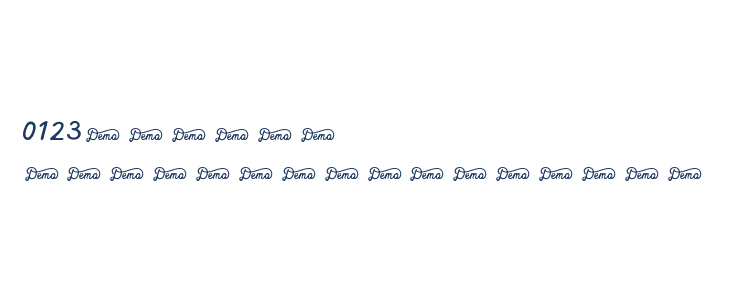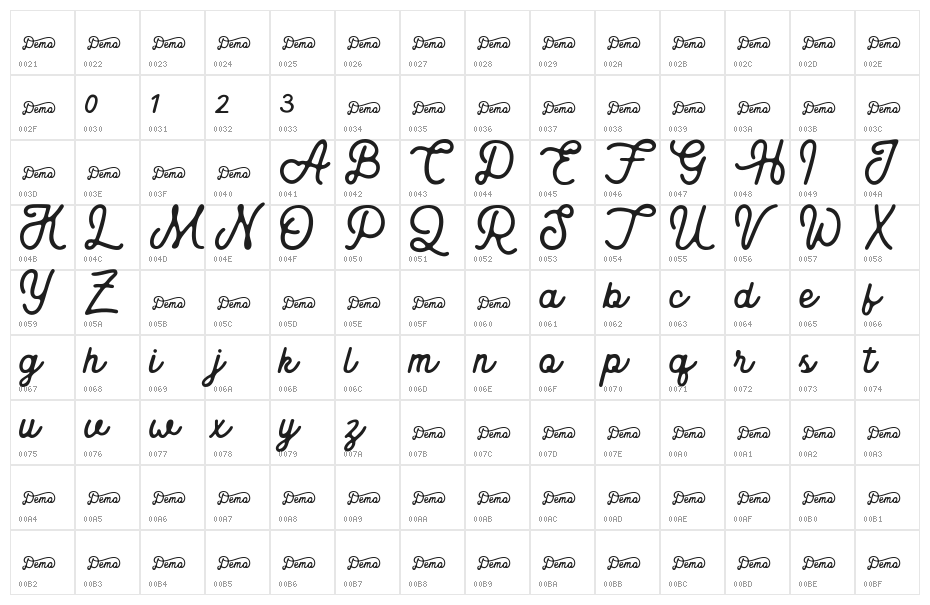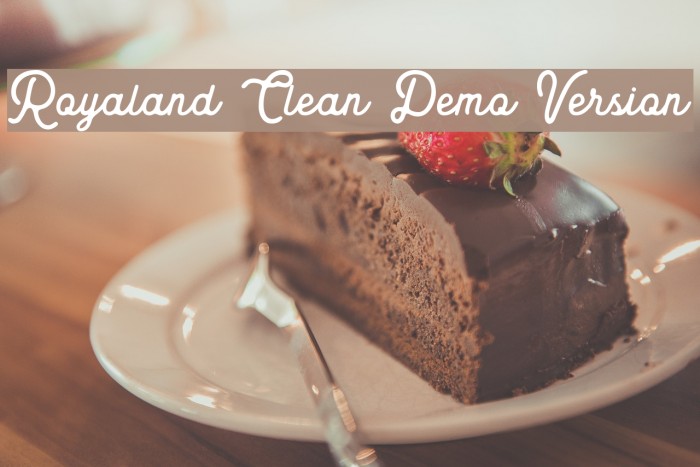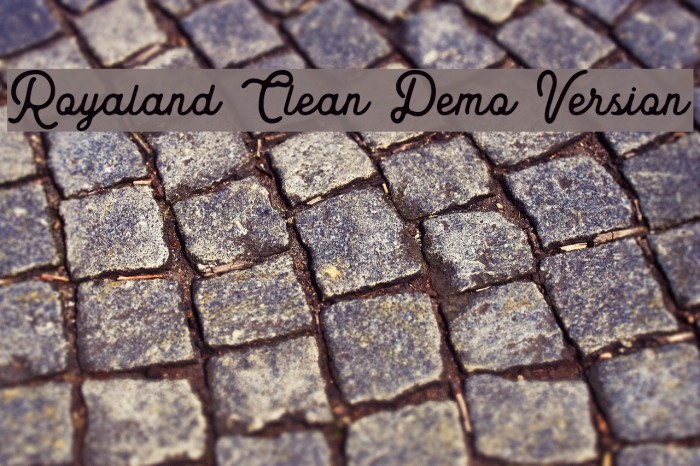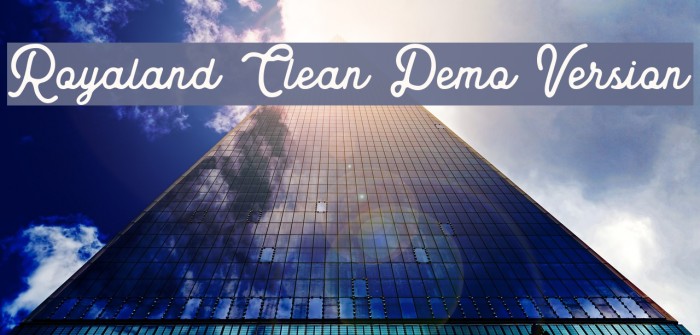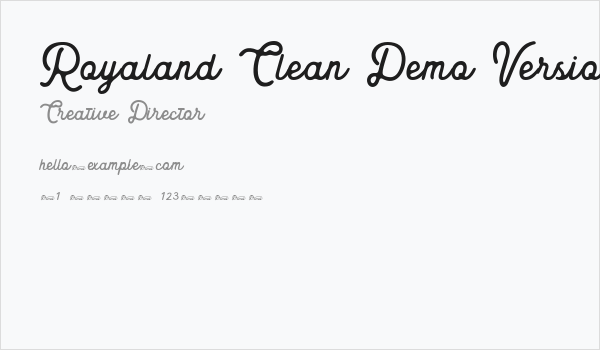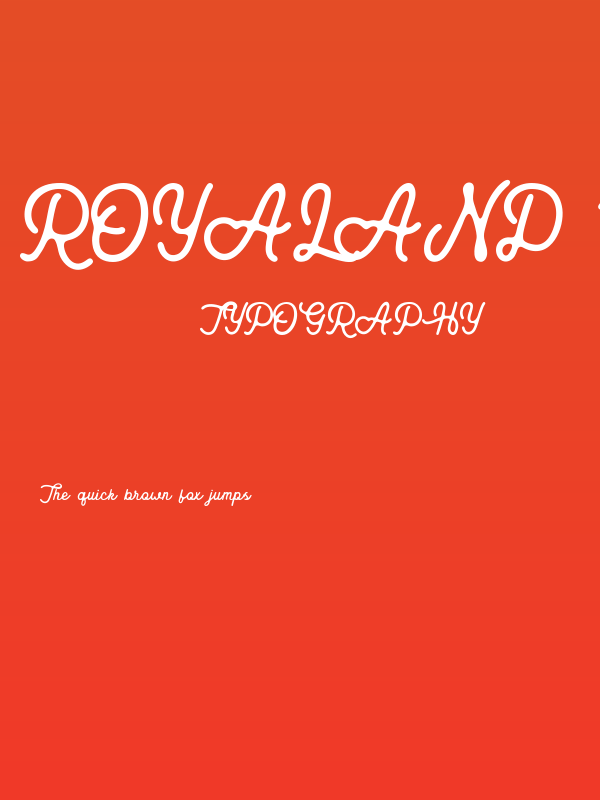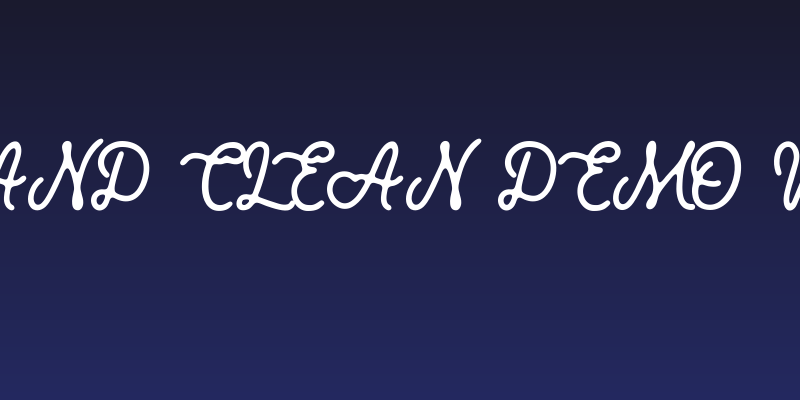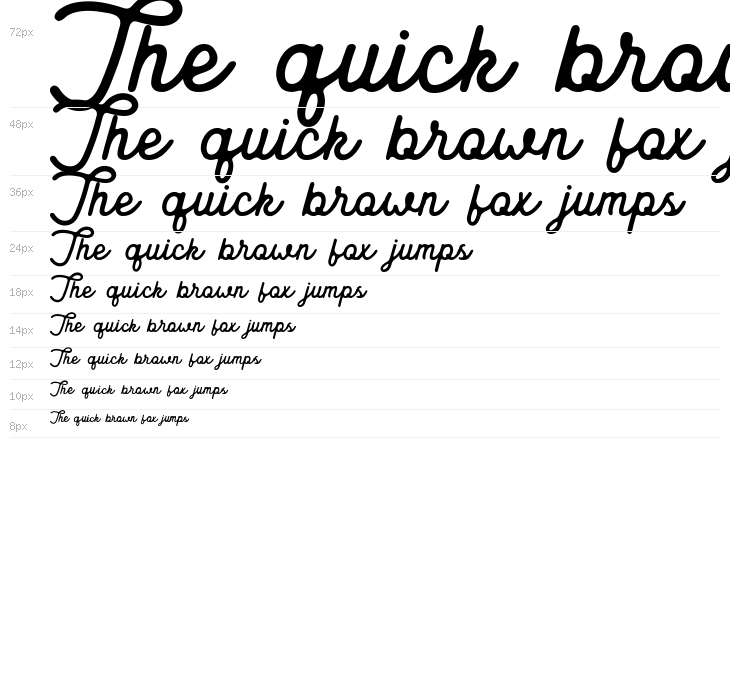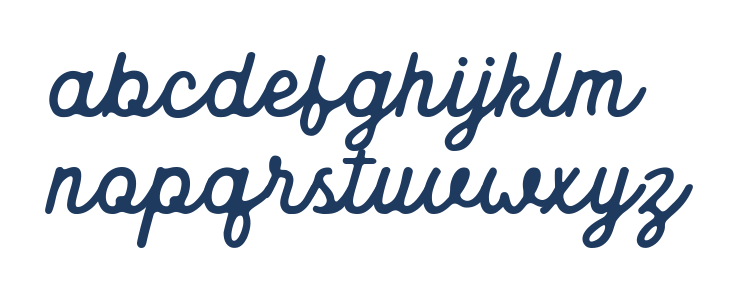
Royaland Clean Demo Version Font
Royaland Clean Demo Version Description
This font features a flowing, cursive style that combines elegance with readability. The uppercase letters are characterized by their intricate loops and swirls, giving them a decorative flair. The lowercase letters maintain a consistent flow, with smooth curves and a slightly slanted orientation, enhancing the script-like appearance. The numerals are designed to match the overall style, with a playful yet sophisticated look. The special characters integrate seamlessly, maintaining the font's cohesive aesthetic. This font is well-suited for projects that require a touch of elegance and sophistication, such as invitations, branding, and decorative headings.
| Overall Style | Elegant, Decorative |
| Proposed Projects | Ideal for wedding invitations, elegant branding, and decorative headings. |